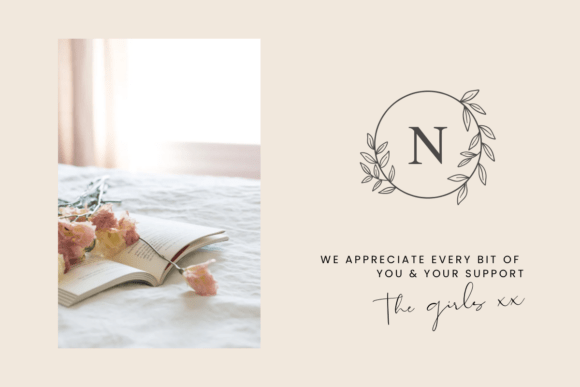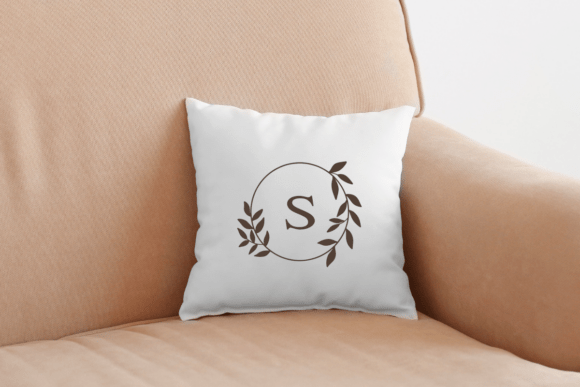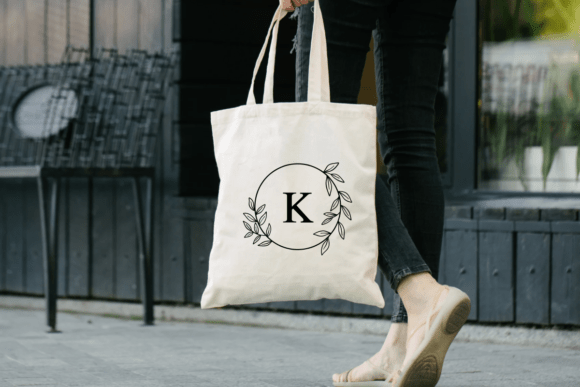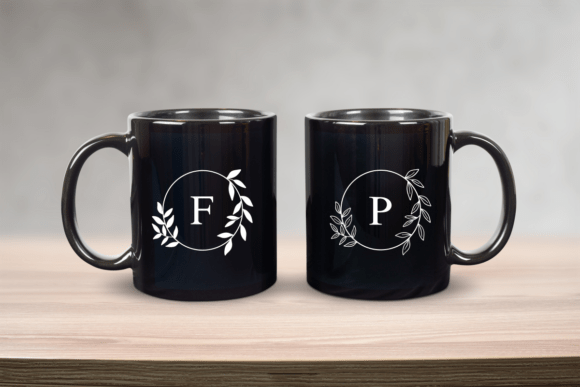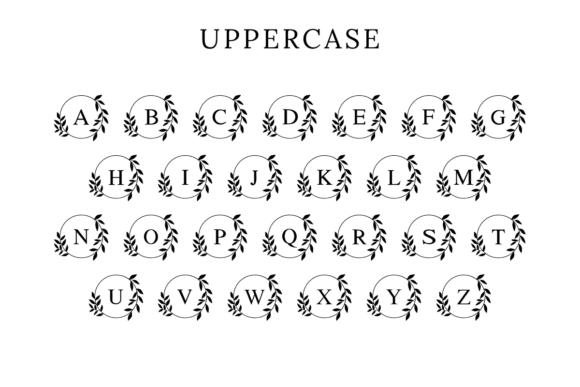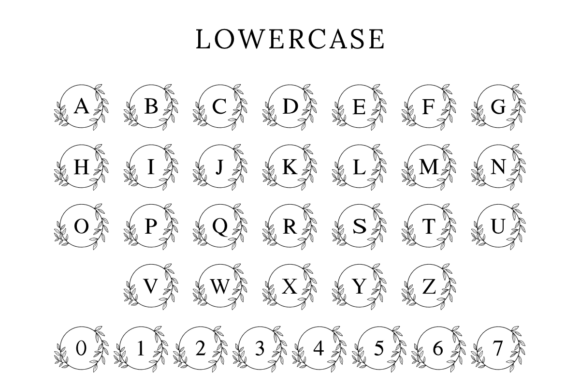
Eterna Leaf Monogram Font: Elevate Your Designs with Elegant Botanical Style
Are you looking for a sophisticated and refined font to elevate your designs? Look no further than the Eterna Leaf Monogram Font. This stunning botanical font features elegant laurel leaves wrapping around each letter, adding a natural touch to your creations. Perfect for wedding designs, upscale branding, packaging, or monogram logos, this decorative typeface is sure to impress.
What is Eterna Leaf Monogram Font?
Eterna Leaf Monogram Font is a unique and stylish font that combines the classic elegance of laurel leaves with modern typography. The font features beautifully crafted laurel leaves that wrap around each letter, creating a sophisticated and luxurious look. The leaves are intricately designed, with delicate details that add a touch of realism to the font.
Key Features of Eterna Leaf Monogram Font
- Elegant Laurel Leaves: The font features beautiful laurel leaves that wrap around each letter, adding a natural and refined touch to your designs.
- Sophisticated Design: The font is designed to be sophisticated and luxurious, making it perfect for high-end branding, wedding designs, and upscale packaging.
- Monogram Style: The font is designed as a monogram font, making it perfect for creating custom monograms, logos, and branding materials.
- Versatile: The font can be used for a variety of design projects, including wedding designs, branding, packaging, and more.
Uses for Eterna Leaf Monogram Font
Eterna Leaf Monogram Font is a versatile font that can be used for a variety of design projects. Here are some ideas for using this beautiful font:
- Wedding Designs: Use the font to create elegant wedding invitations, save-the-date cards, and other wedding stationery.
- Upscale Branding: Use the font to create luxurious branding materials, such as logos, business cards, and letterheads.
- Packaging: Use the font to create elegant packaging for high-end products, such as cosmetics, jewelry, and luxury foods.
- Monogram Logos: Use the font to create custom monogram logos for businesses, events, or personal projects.
Why Choose Eterna Leaf Monogram Font?
There are many reasons to choose Eterna Leaf Monogram Font for your design projects. Here are a few:
- Unique and Elegant: The font is unique and elegant, making it perfect for designers who want to create sophisticated and refined designs.
- High-Quality Design: The font is designed to high standards, with intricate details and a beautiful design.
- Versatile: The font can be used for a variety of design projects, making it a great addition to any designer’s toolkit.
Eterna Leaf Monogram Font is a beautiful and elegant font that is perfect for designers who want to create sophisticated and refined designs. With its unique laurel leaf design and versatile uses, this font is a great addition to any designer’s toolkit. Whether you’re creating wedding designs, upscale branding, packaging, or monogram logos, Eterna Leaf Monogram Font is the perfect choice.